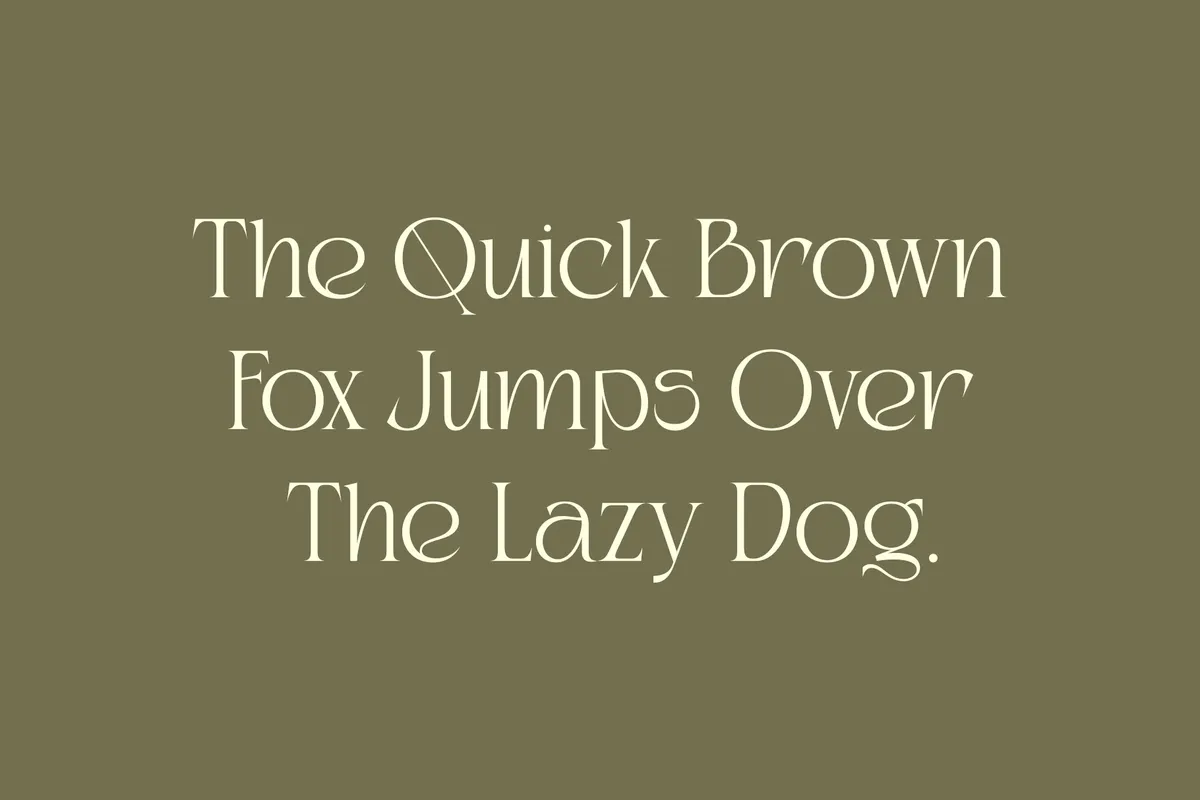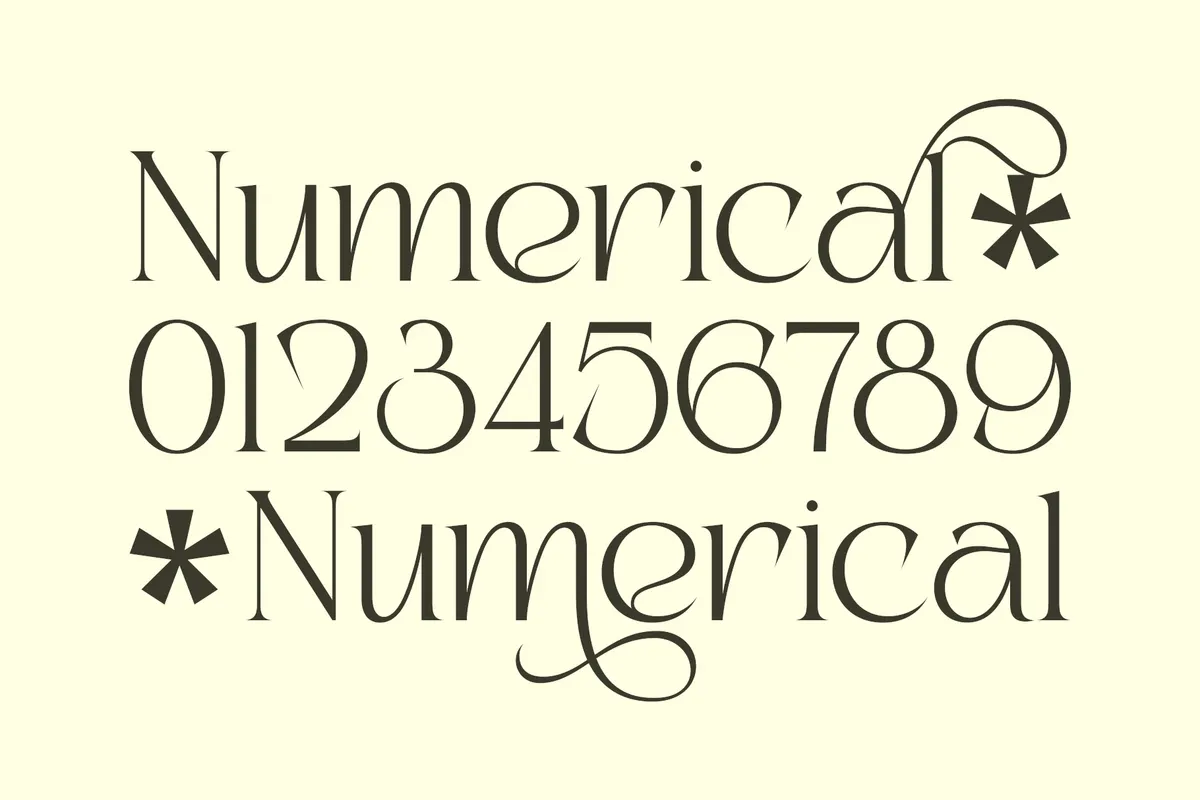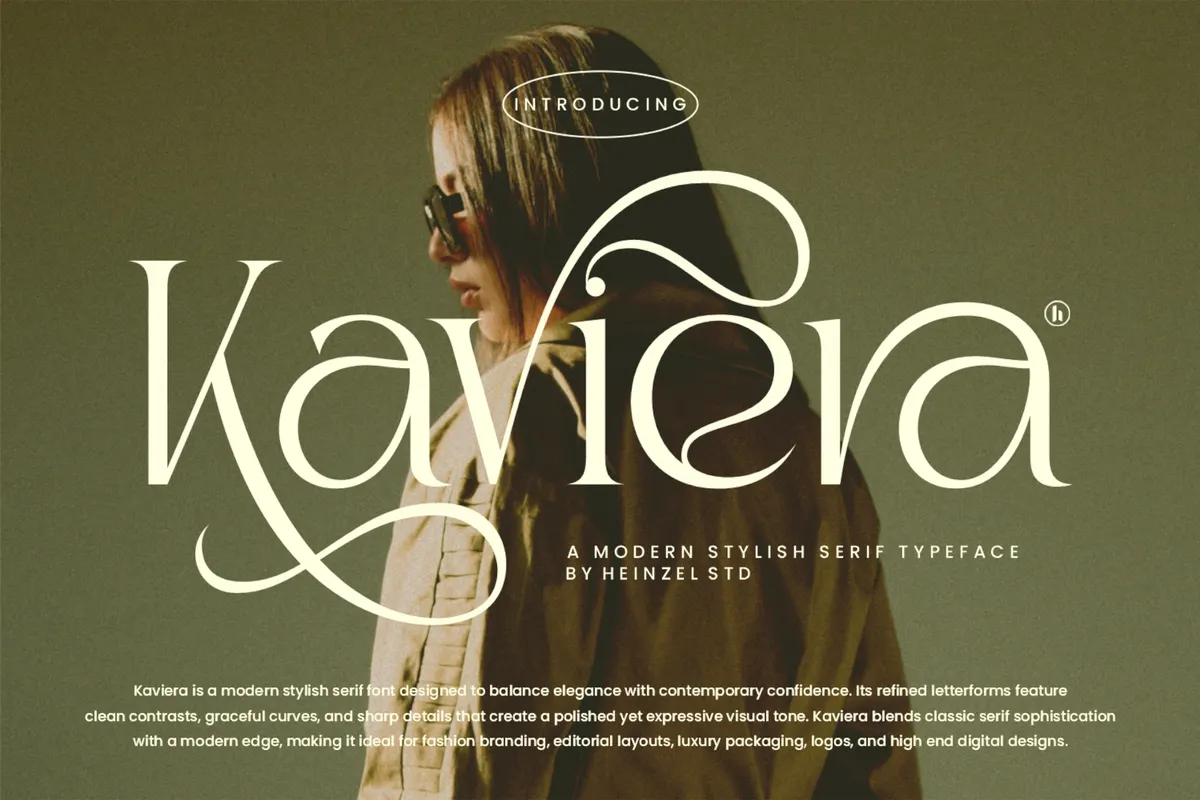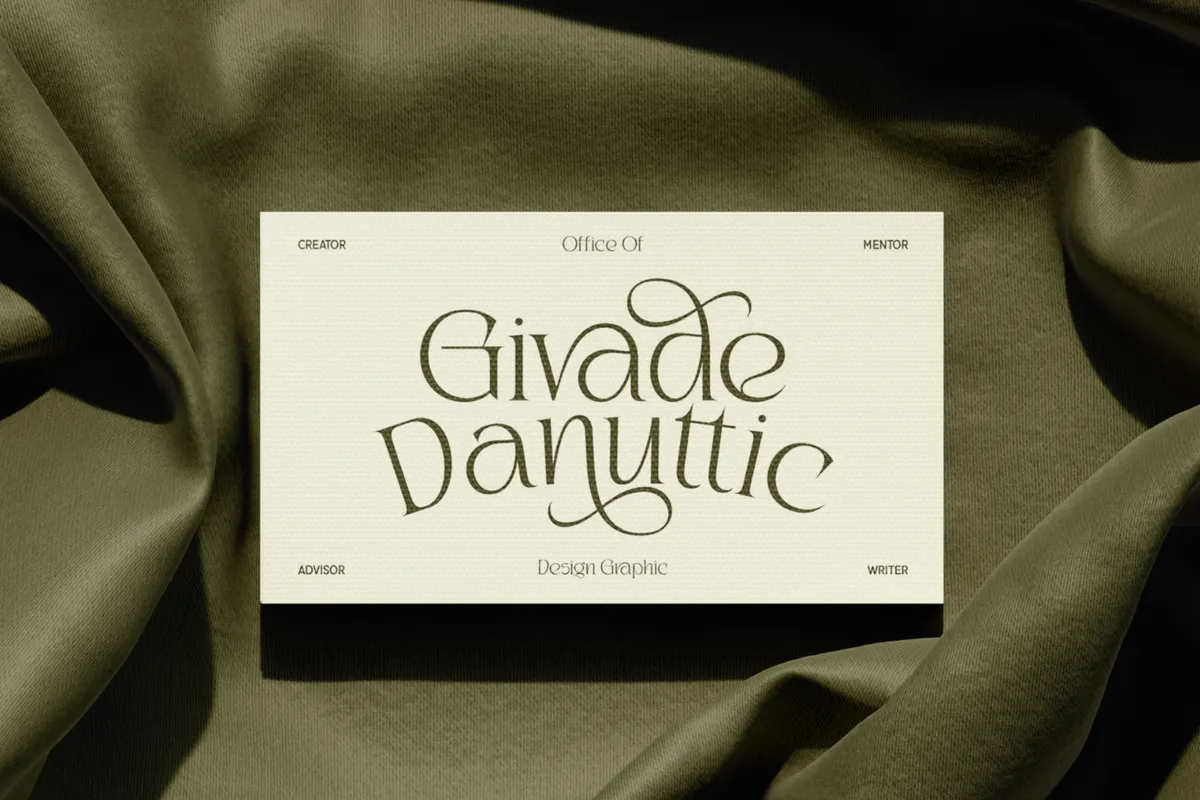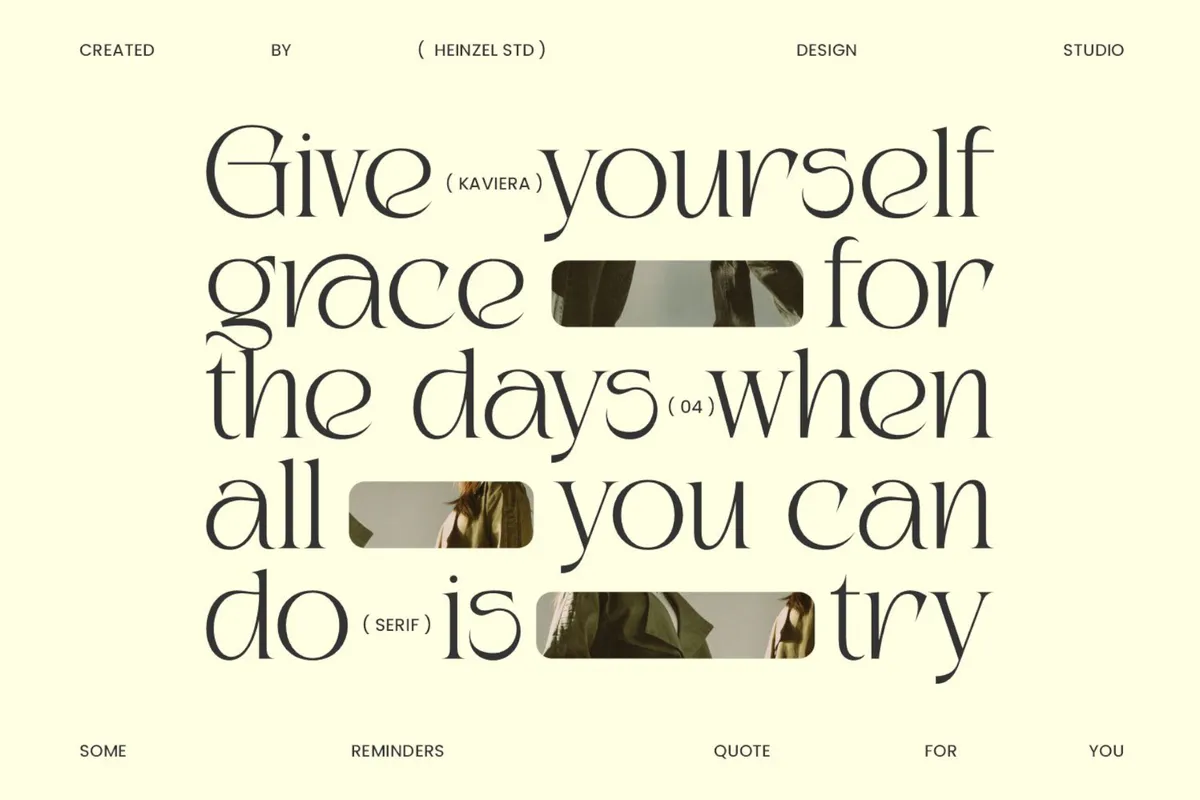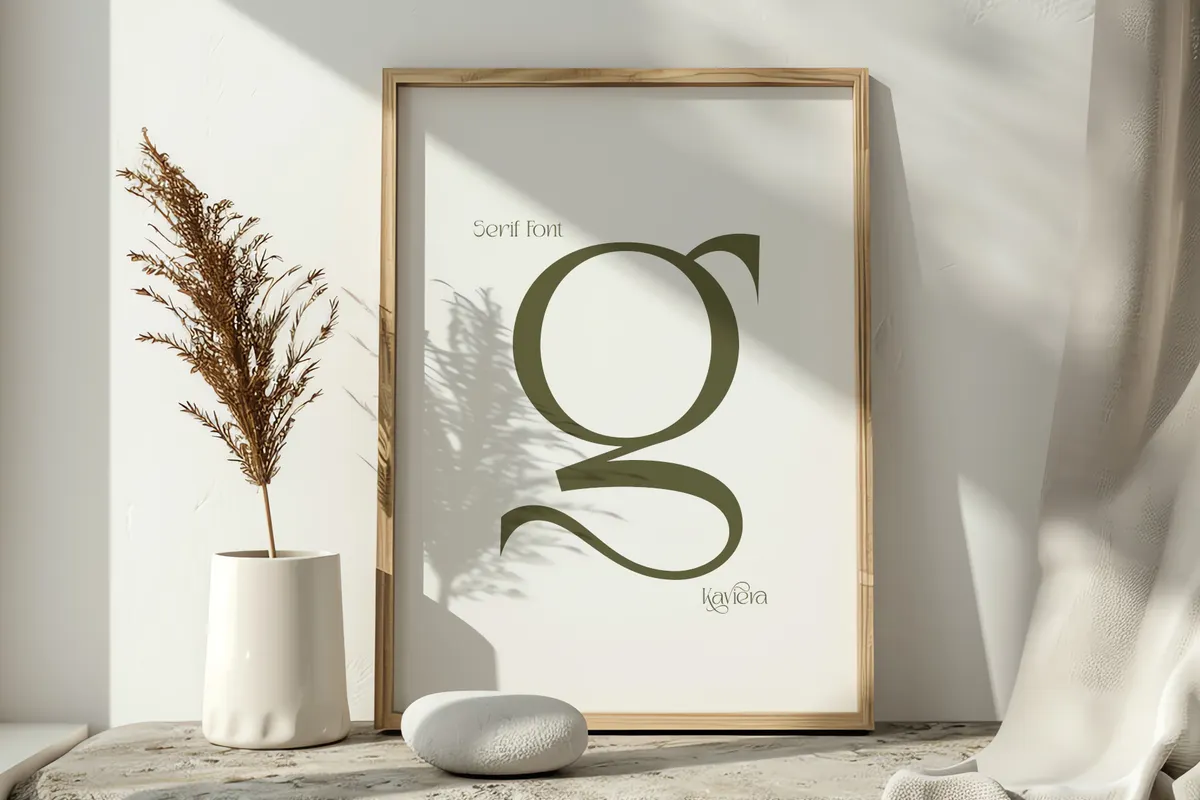
Kaviera - Elegant Swash Serif Font
Kaviera builds a modern serif with graceful swash connections and sharp contrast, closer to a fashion masthead than a quiet text serif. Six ligatures link ga, ra, tt, va, wa, and ya into single connected strokes, and three stylistic alternate sets swap in looser swash forms across most of the lowercase and several capitals, all reachable through the OpenType panel.
Regular and Italic cover the pair, so headlines can mix the two for contrast within the same line. Use it for fashion branding, editorial design, luxury logos, packaging, and high-end digital projects.
- Uppercase & lowercase;
- Numerals, punctuation & symbols;
- Regular and Italic styles;
- 6 ligatures and 3 stylistic alternate sets on select characters;
- Extended Latin character set.